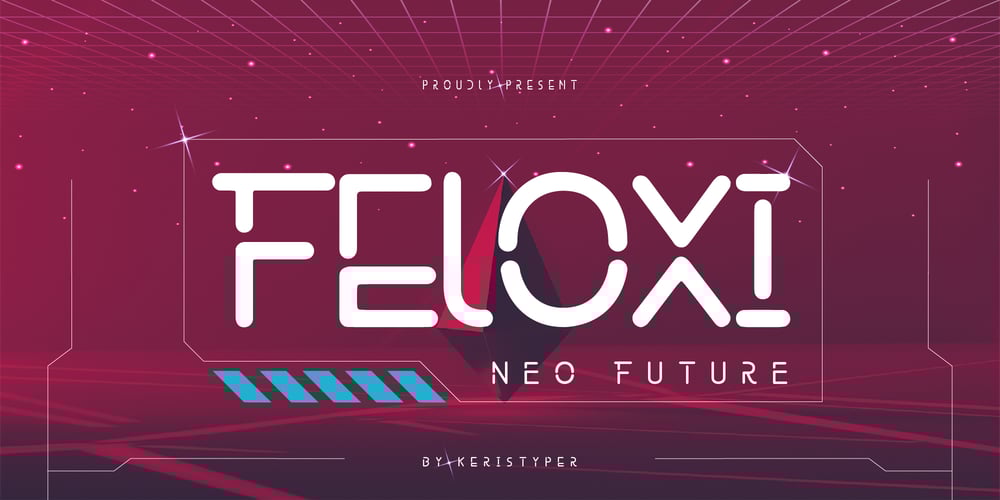
Feloxi
Feloxi font
Feloxi Font Family was designed by Tezar Tantular and published by Keristyper Studio. Feloxi contains 1 styles and family package options. Feloxi is a crafted neon-inspired font giving us the creativity to replicate traditionally hand-made lettering from the imagination of their computer. This font is good for logo design, Social media, Movie Titles, Books Titles, short text even long text letters, and good for your secondary text font with sans or serif.**Featured:*** Standard Uppercase & Lowercase* Numeral & Punctuation* Multilingual : ä ö ü Ä Ö Ü ß ¿ ¡* Alternate & Ligature* PUA encodedWe recommend programs that support the OpenType feature and the Glyphs panel such as Adobe applications or Corel Draw. so you can use all the variations of the glyphs.Hope you enjoy our fonts!